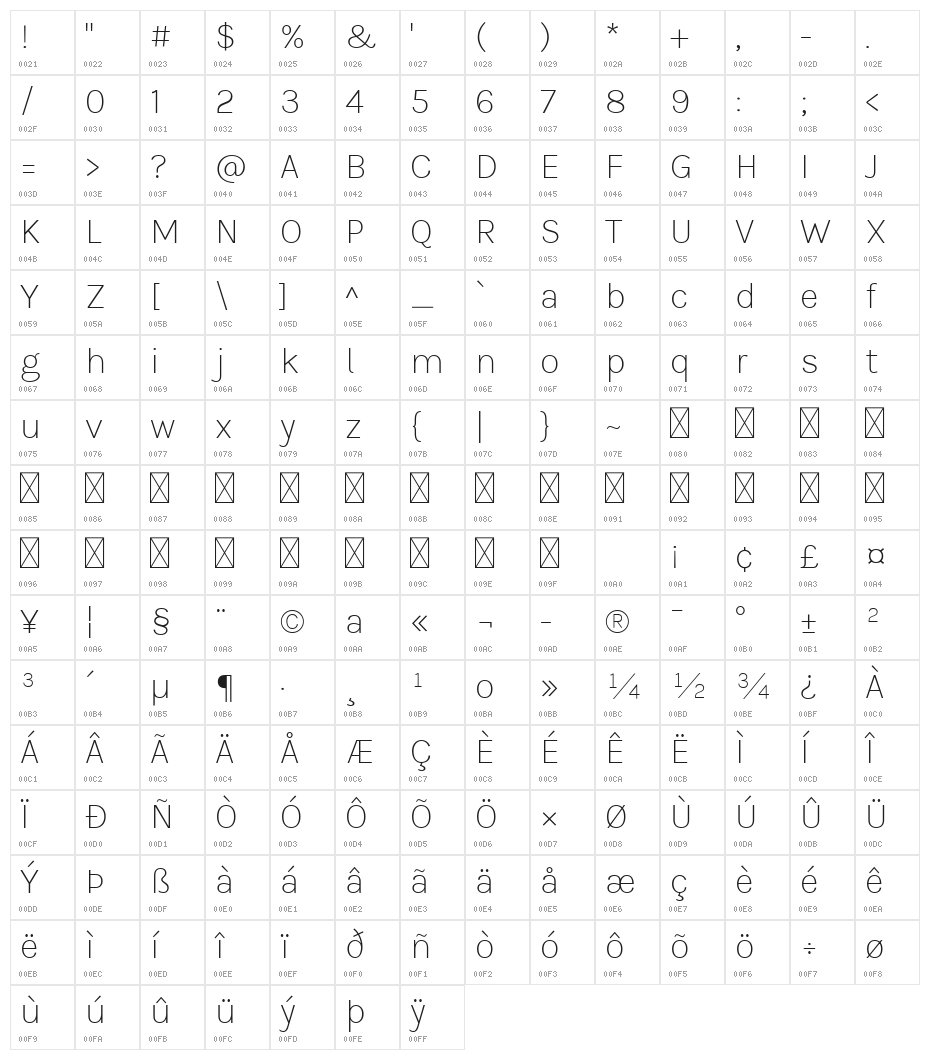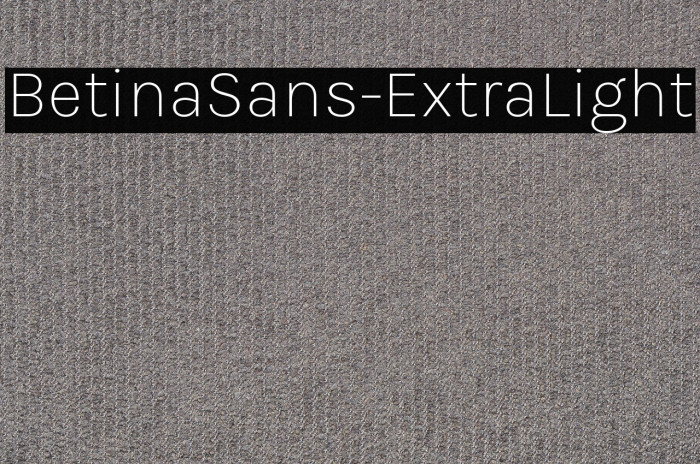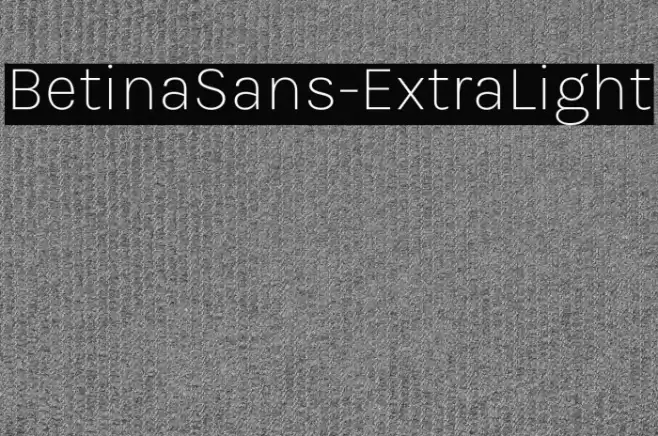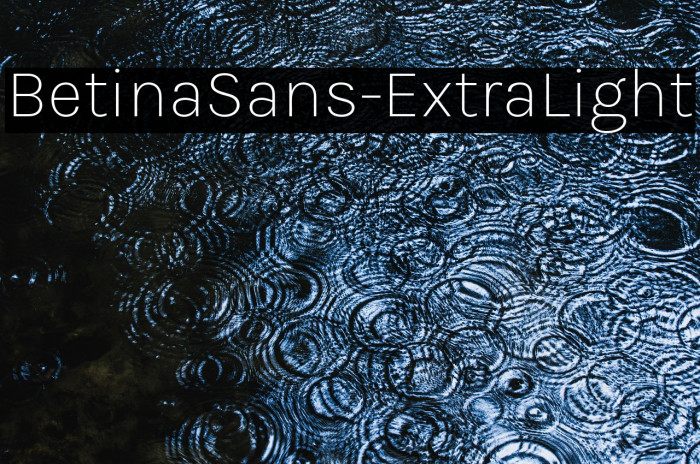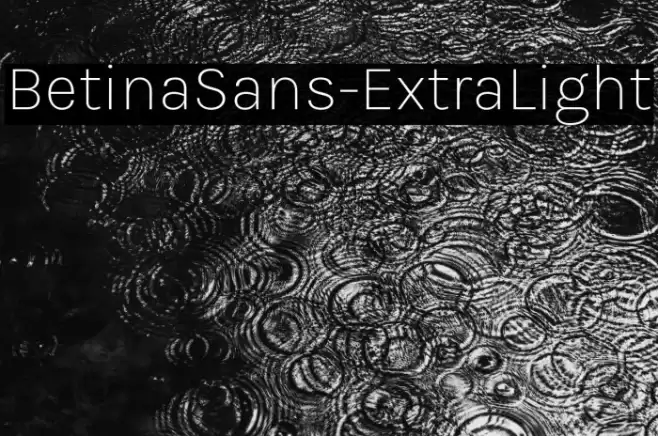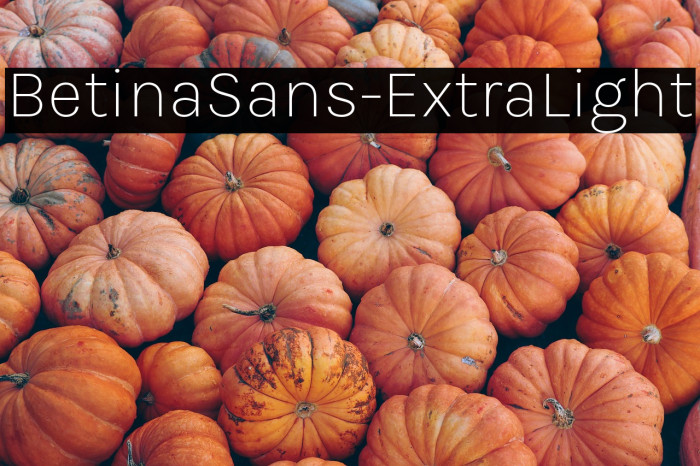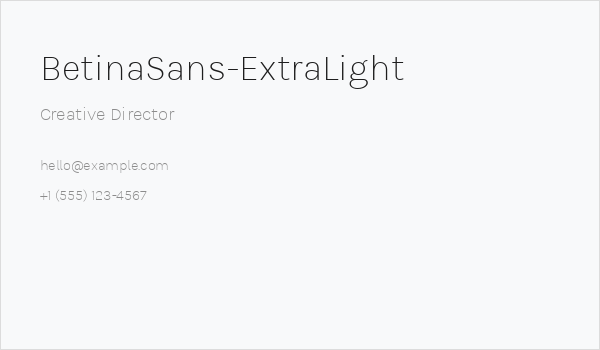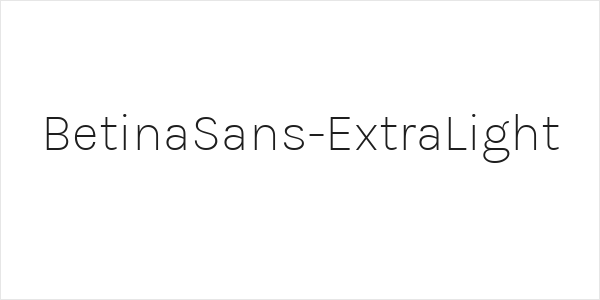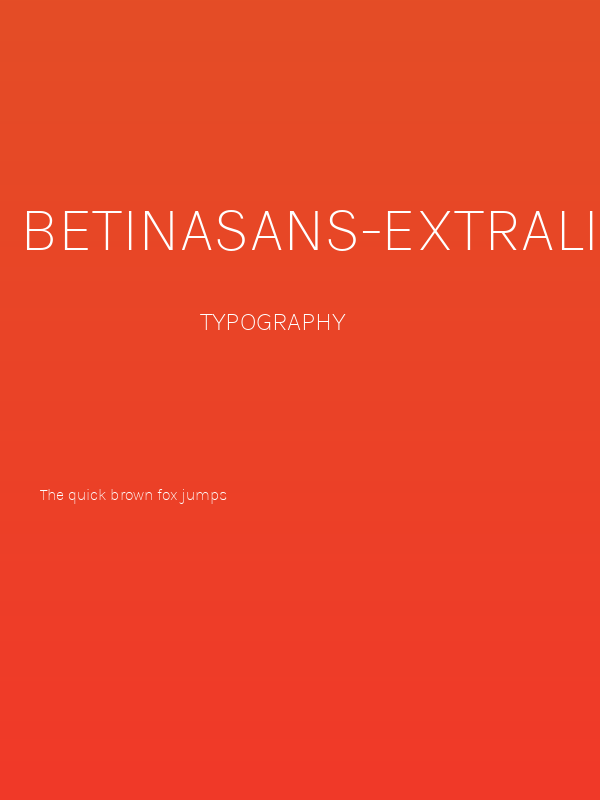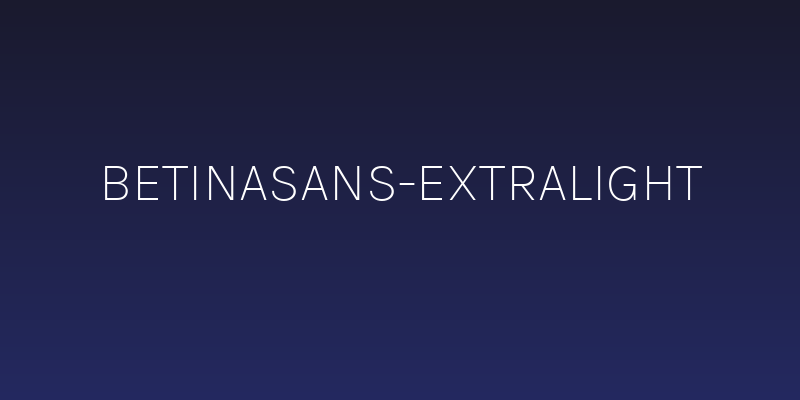
BetinaSans-ExtraLight Font
BetinaSans-ExtraLight Description
This font features a clean and minimalist design with a focus on clarity and readability. Its extra-light weight gives it an airy and modern feel, making it suitable for contemporary design projects. The characters are well-proportioned with a consistent stroke width, contributing to its sleek and elegant appearance. The font's simplicity and geometric shapes make it versatile for various applications, from digital interfaces to printed materials. Its sans-serif style ensures a professional and unobtrusive look, ideal for conveying information clearly.